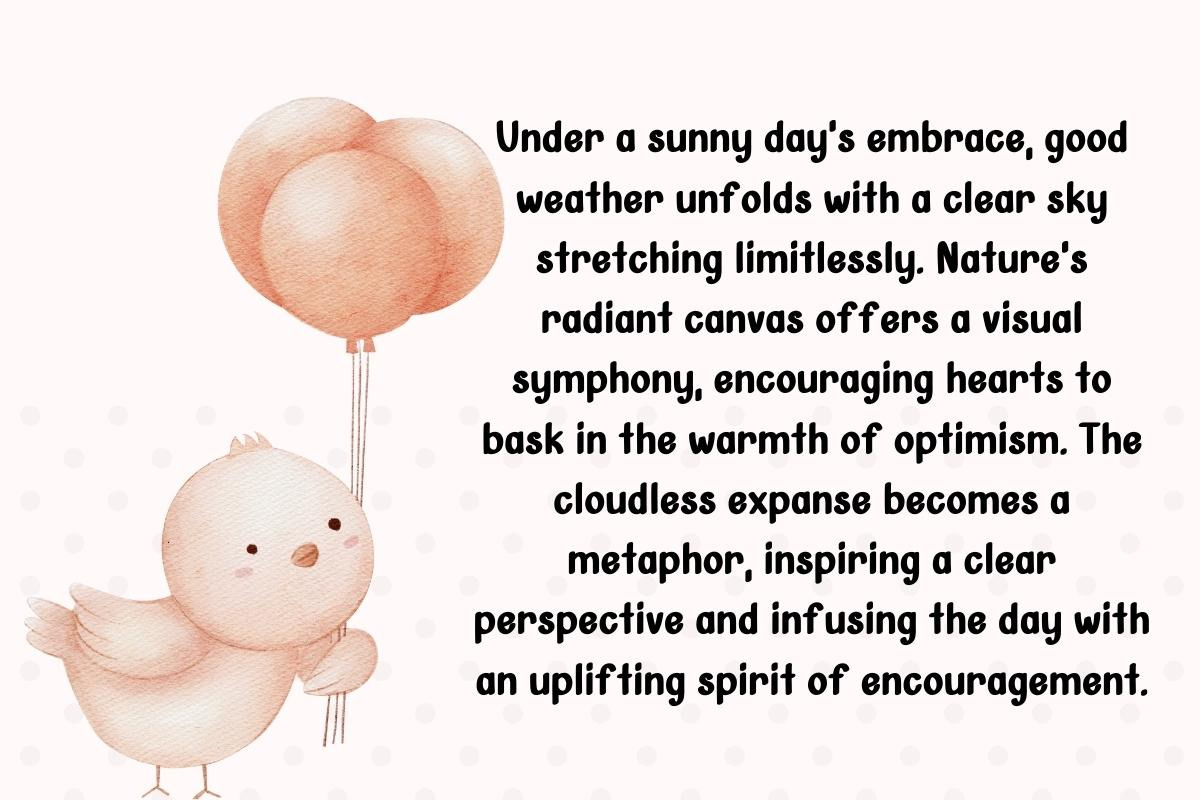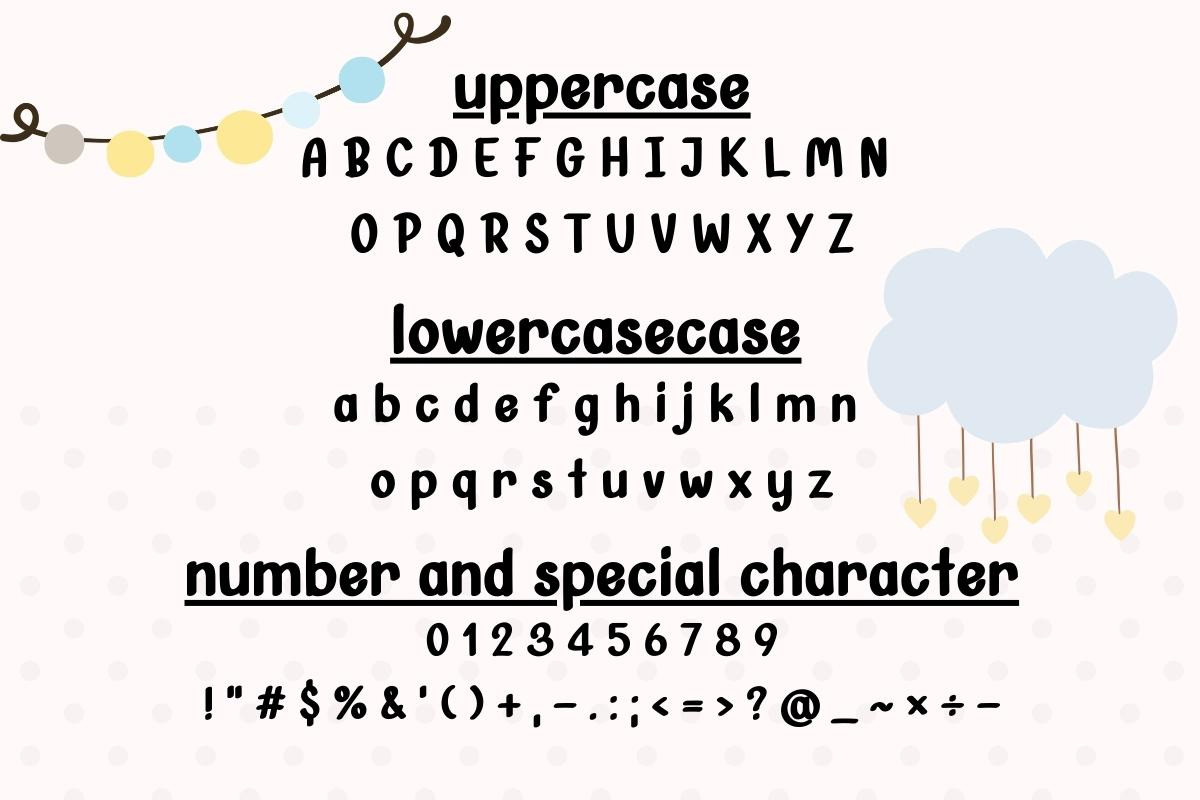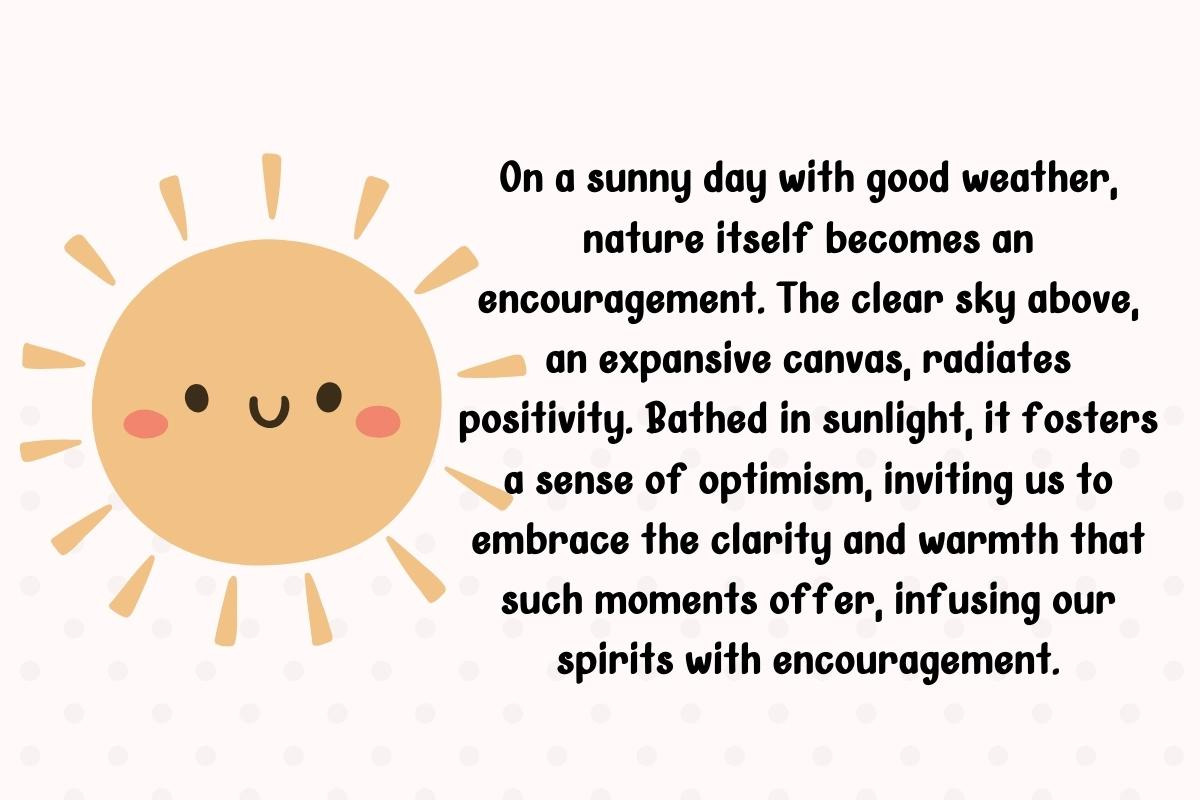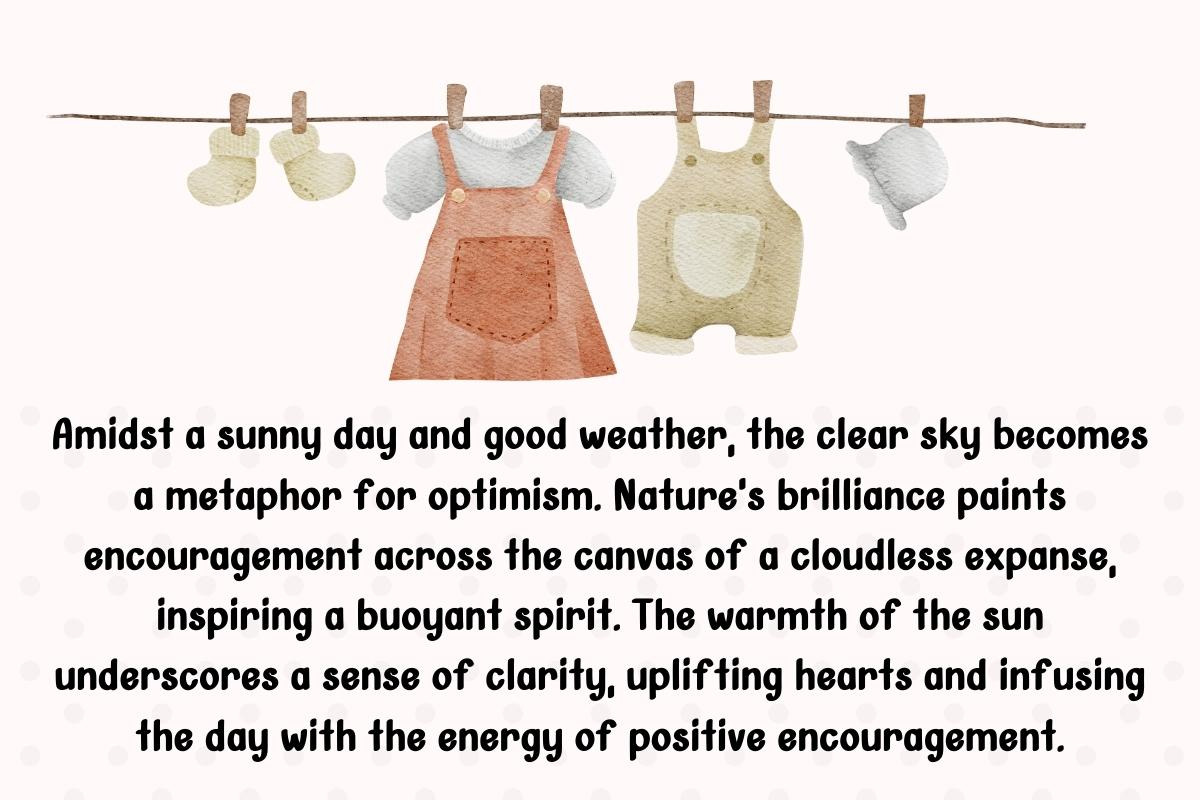
Hello Sky - Handwritting
Meet the enchanting Hello Sky font – where letters playfully twirl in the sky like cheerful clouds. 🌈✨ Infuse your designs with a dash of whimsy and warmth as each character whispers a friendly "hello." Let Hello Sky transform your words into a charming symphony, painting your messages with joy and delight! ☁️🌟